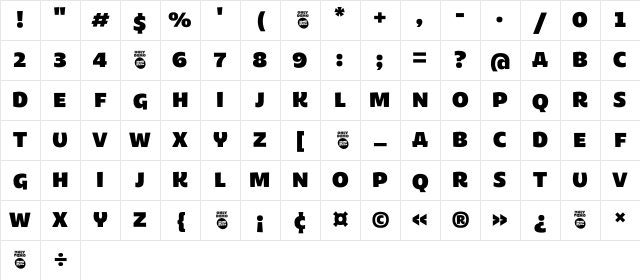
Kiara Demo Black Shadow Free Font
Kiara Demo Black Shadow
Style: Black Shadow
Foundry: Rodrigotypo
Designer: Rodrigo Araya + Bruno Jara
Design Context for Kiara Demo
Kiara Demo is built around its visual character rather than neutral utility - its distinctive forms are designed to make an impression at display sizes.
Font Pairing: Pair with a clean neutral sans-serif for body copy to let Kiara Demo's character lead without overwhelming the composition.
Pro Tip: Use Kiara Demo exclusively at display sizes - it was designed to be seen, not read at length. Let a neutral companion handle body copy.